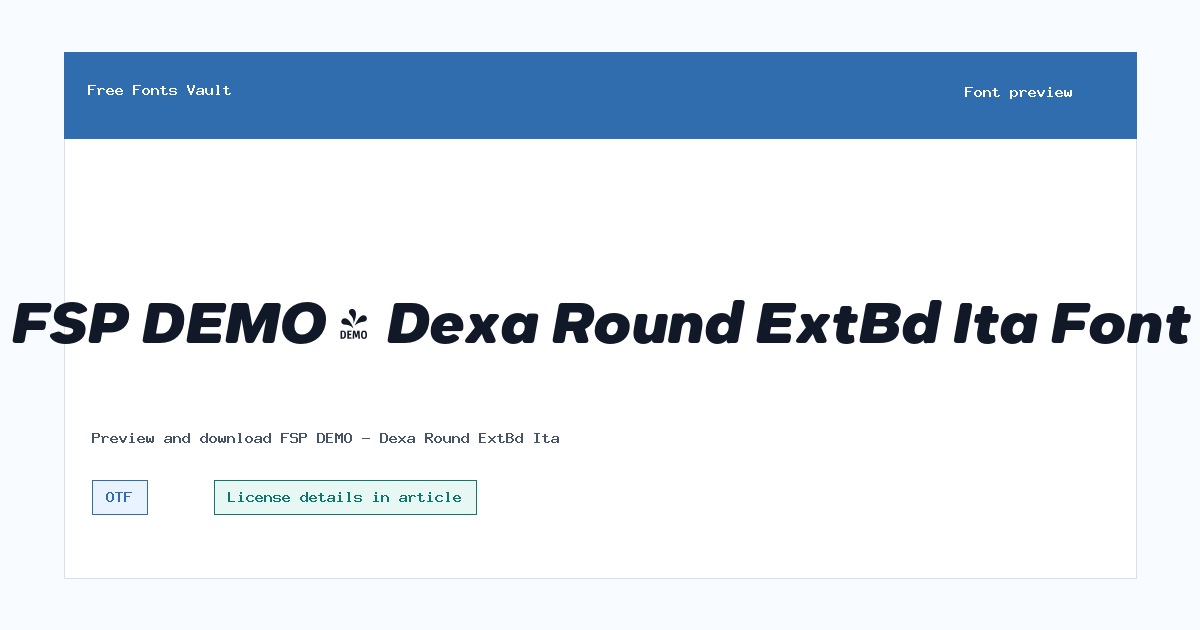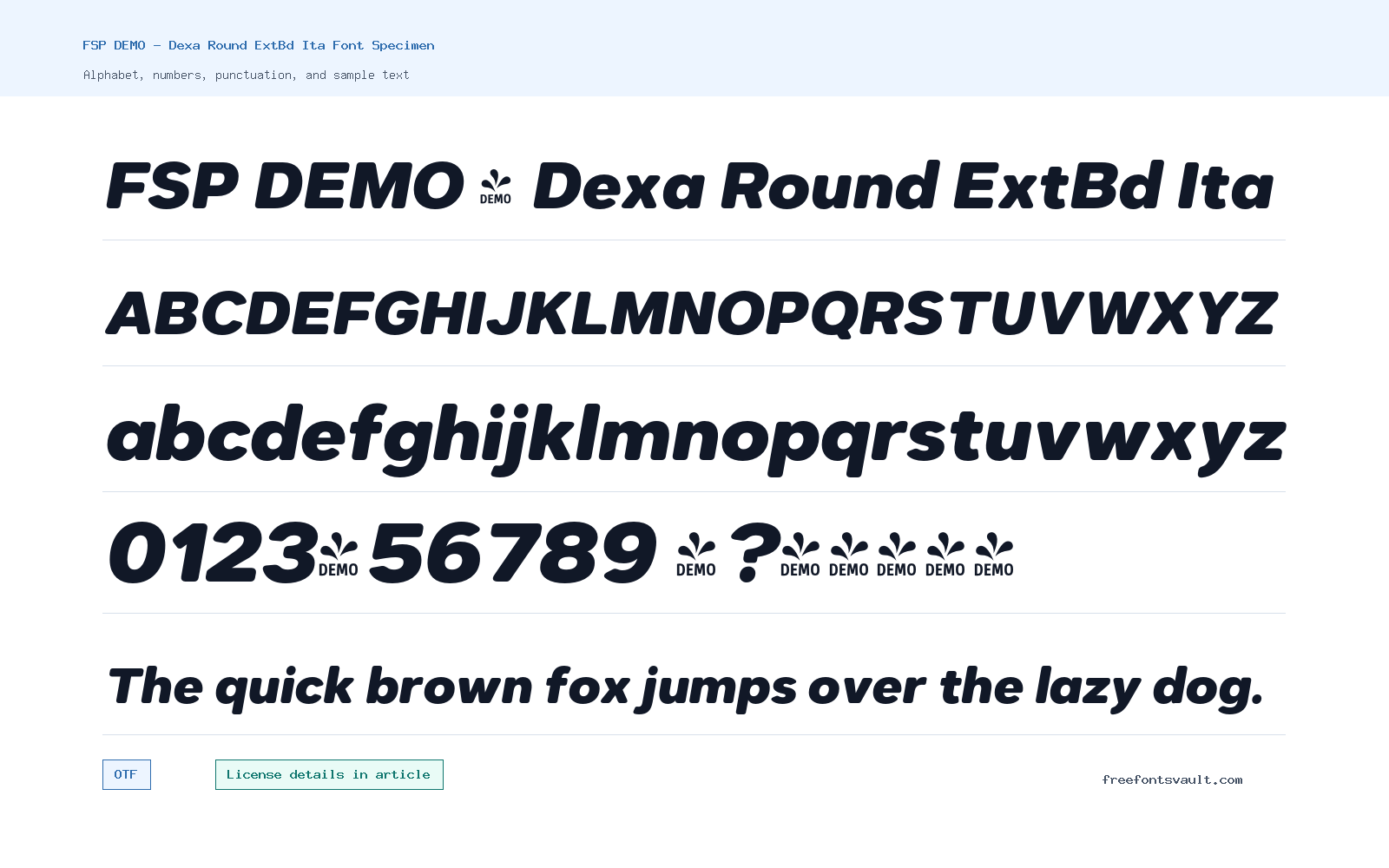
FSP DEMO - Dexa Round ExtBd Ita
- Designer Ceyhun Birinci
- Foundry Artegra
FSP DEMO – Dexa Round ExtBd Ita font.
Dexa Round ExtraBold Italic Demo is a heavy, slanted rounded typeface style for visitors who want bold lettering with a softer edge.
About Dexa Round ExtraBold Italic Demo
FSP DEMO – Dexa Round ExtBd Ita is an OpenType font file with an italic style and 800 weight. The name points to an ExtraBold Italic cut, so it is best treated as a strong display style rather than a long-reading text face. Its rounded structure can make large words feel less harsh than sharp-edged bold italics, while the slant adds motion and emphasis.
Use the preview tool to test short words, brand-style headings, buttons, poster lines, and social graphics. Heavy italic fonts can look crowded in small sizes, so check spacing carefully before using it for menus, captions, or body copy. It should work best where you need a few words to stand out, especially in large sizes with enough room around the letters.
- Extra-bold 800 weight for strong display text
- Large headlines, title cards, and promo graphics
- Short logo-style text, labels, badges, and callout words
The font entry names Ceyhun Birinci as the designer and Artegra as the foundry.
Keep the text short, increase letter spacing if the preview feels tight, and test uppercase and lowercase samples before downloading. Because this is marked as a demo font, compare it with the full family or official release if you need complete language support or production licensing. Dexa Round ExtraBold Italic is strongest when the design needs movement and friendly weight at the same time. Use it for short calls to action, sporty headings, product labels, badges, and energetic poster lines. Avoid stacking too many italic words together; the slant already creates motion, so extra effects can make the result feel busy. If you add outlines, shadows, or gradients, preview the font again at mobile size and check that counters, punctuation, and tight letter pairs stay readable. For multilingual text, preview every needed character before committing to the design. Demo fonts sometimes have limited character coverage, and heavy italic styles make missing accents or fallback glyphs more noticeable.
What style is Dexa Round ExtraBold Italic Demo?
It is an extra-bold italic rounded font style, suited mainly to large display text and short emphasis.
Is this good for body text?
It is probably better for headlines and short phrases. The heavy italic shape may reduce readability in long paragraphs or small sizes.